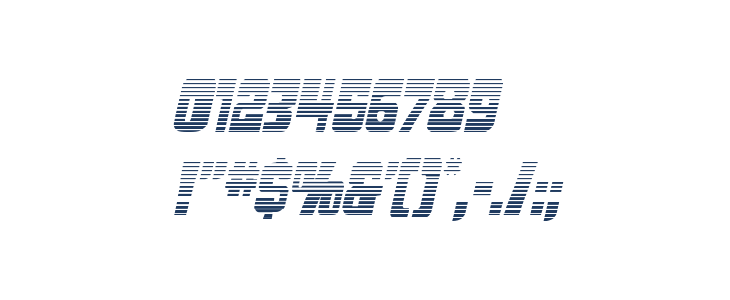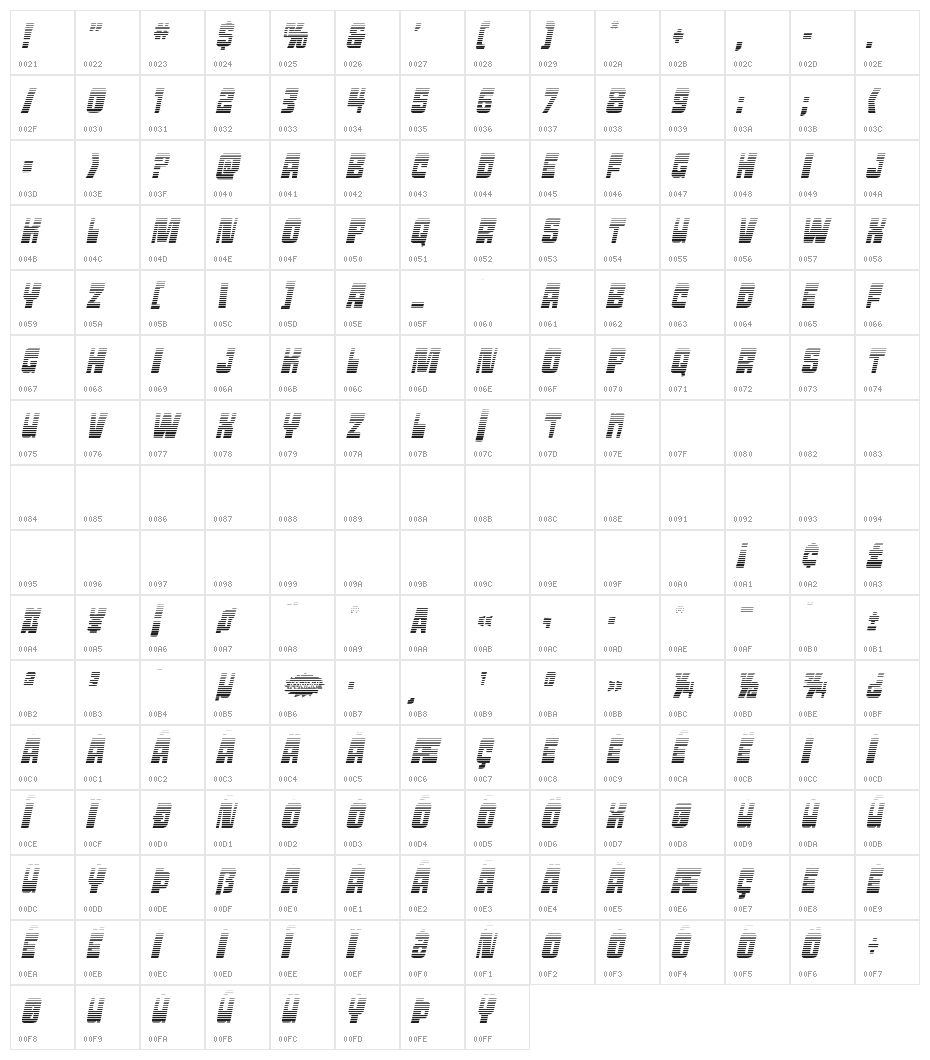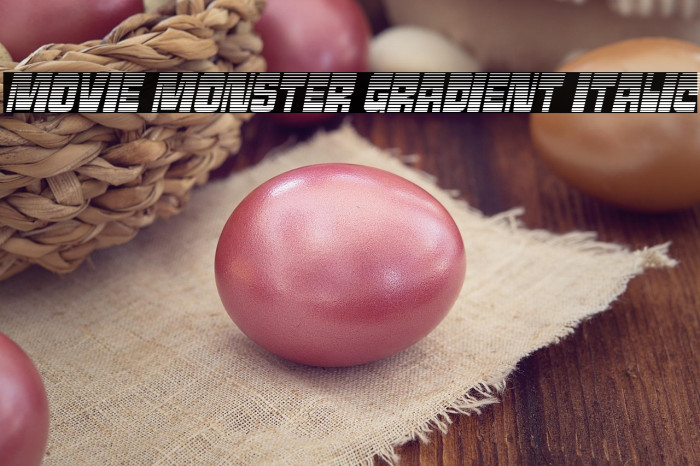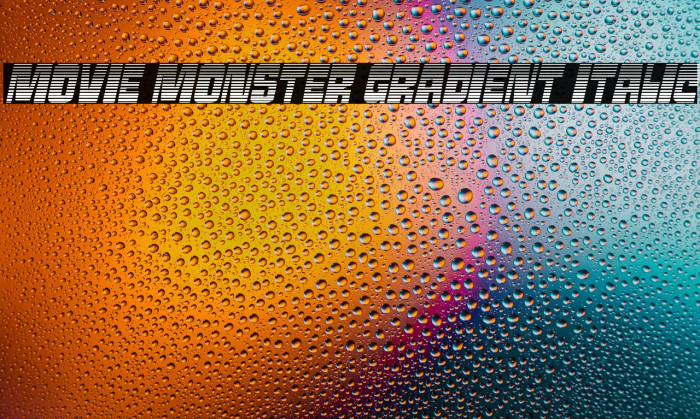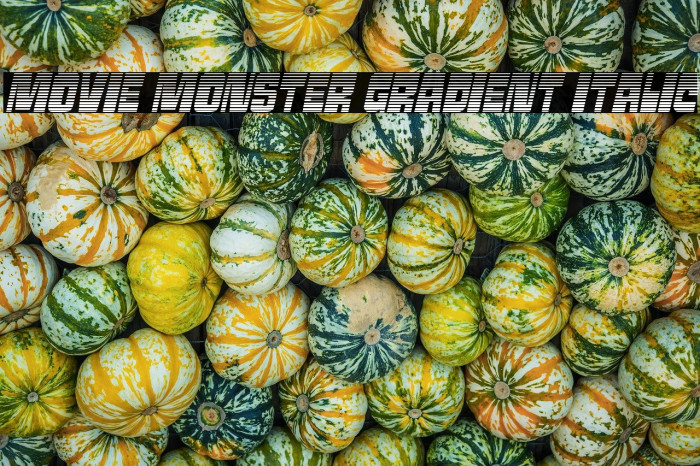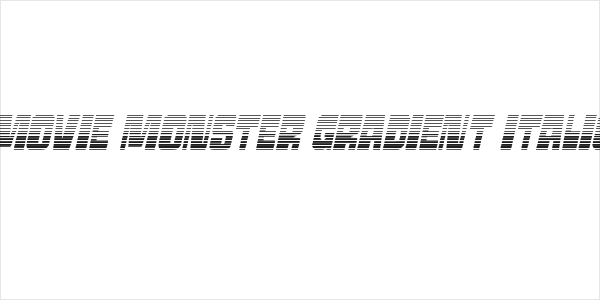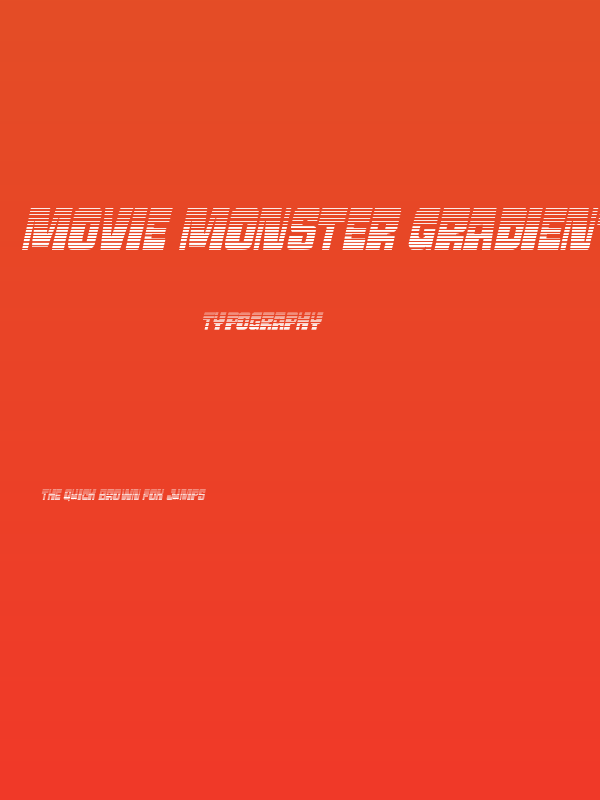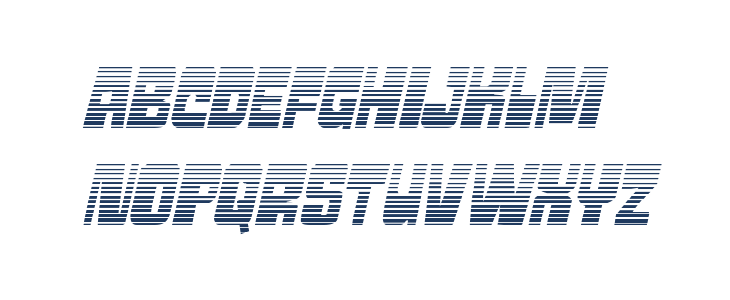
Movie Monster Gradient Italic Font
Movie Monster Gradient Italic Description
This font features a bold, italicized style with a distinct gradient effect that gives it a dynamic and modern appearance. The characters are designed with horizontal lines that create a sense of movement and energy, making it ideal for attention-grabbing headlines or titles. The uppercase and lowercase letters maintain a consistent width, enhancing readability while still offering a unique visual appeal. The numbers and special characters are crafted with the same gradient and italicized style, ensuring uniformity across all elements. This font is perfect for projects that require a futuristic or tech-inspired aesthetic.
| Proposed Projects | Ideal for movie posters, video game covers, tech product branding, and futuristic-themed event invitations. |